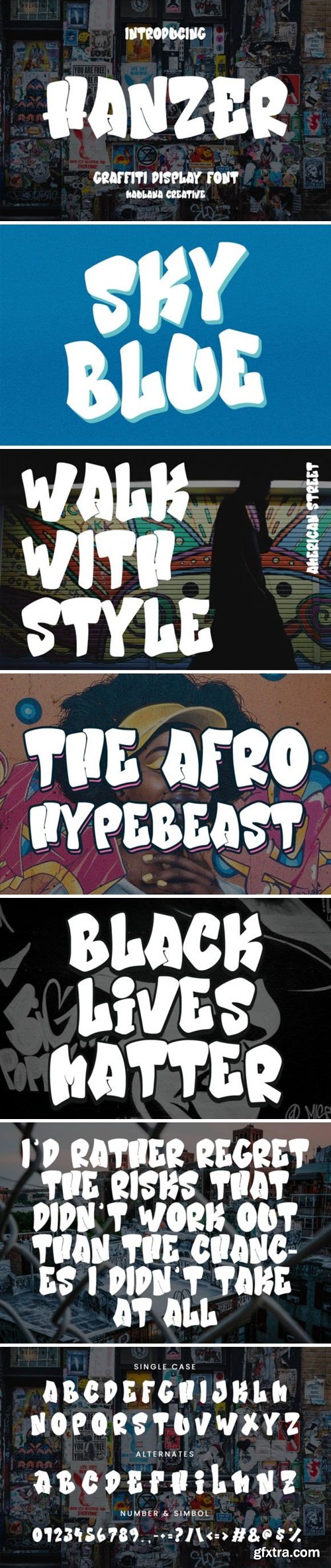
汉泽字体
Hanzer font is the epitome of urban artistry, embodying the spirit of graffiti with every stroke. This display font exudes raw energy and street style, making your designs pop with an edgy vibe. Whether it’s for logos, posters, or urban-themed projects, Hanzer font adds a rebellious and authentic touch, capturing the essence of graffiti culture in every character. This font is PUA encoded which means you can access all of the amazing glyphs and ligatures with ease!